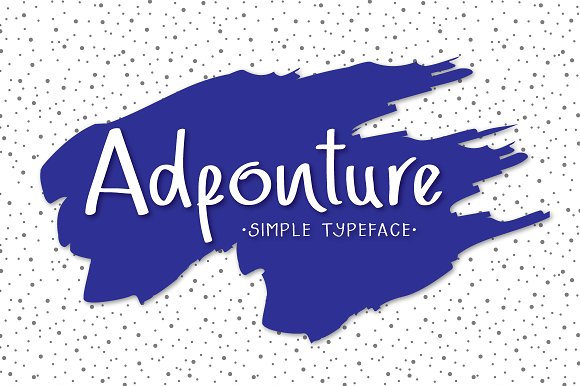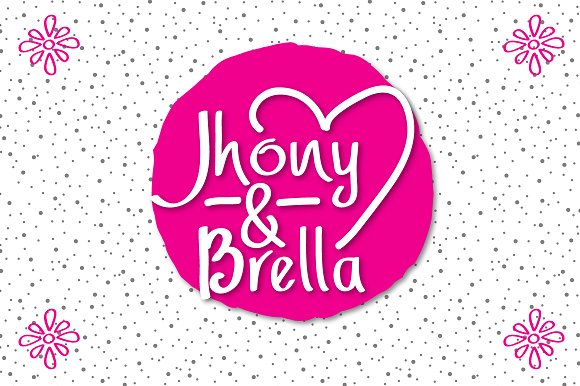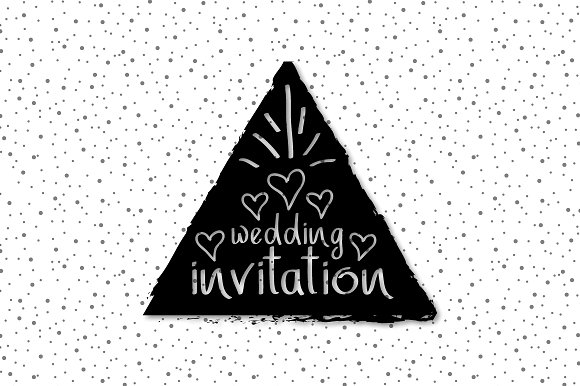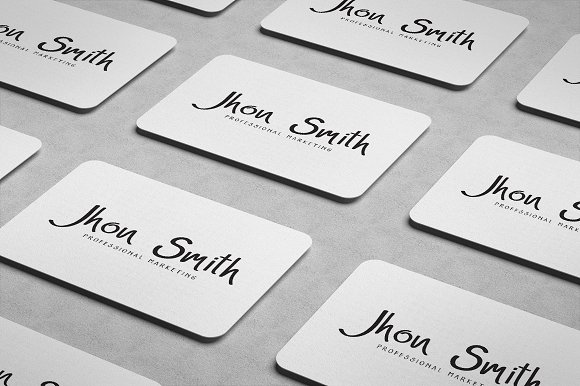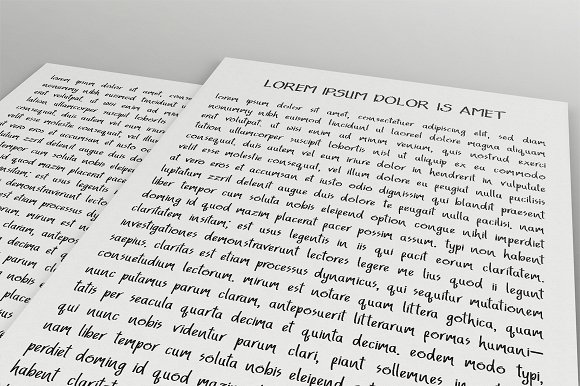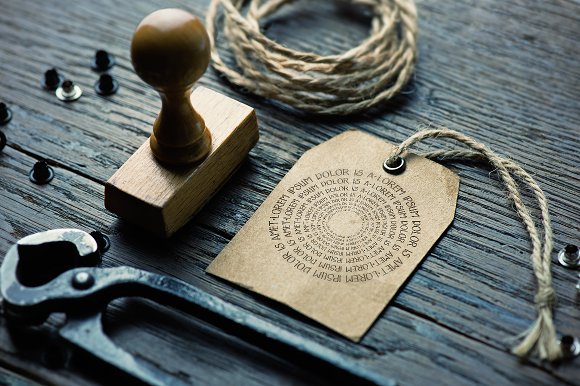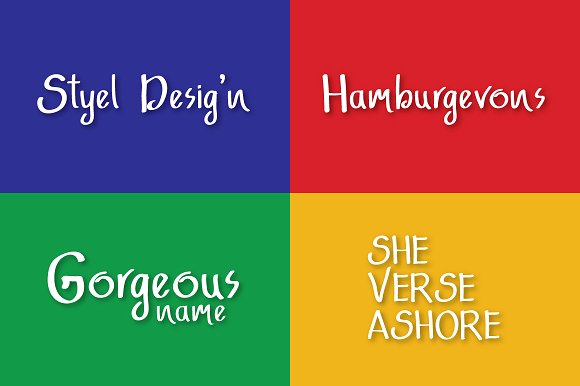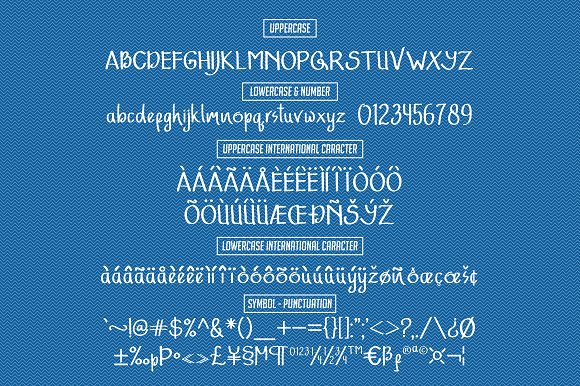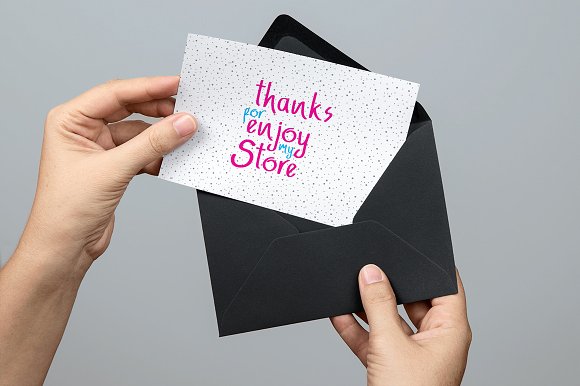
Adfonture Font
About Adfonture Font
Adfonture is a sweet and smooth handwritten font created by the Atjcloth Studio.
This clear to read font allows you to create stunning personalized items.